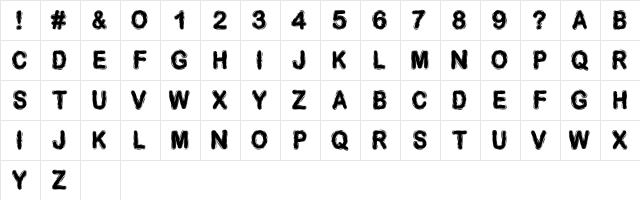
DESMINORE Regular
Design Context for DESMINORE Typeface
DESMINORE is a composed and adaptable typeface that performs quietly and consistently across a wide range of design contexts.